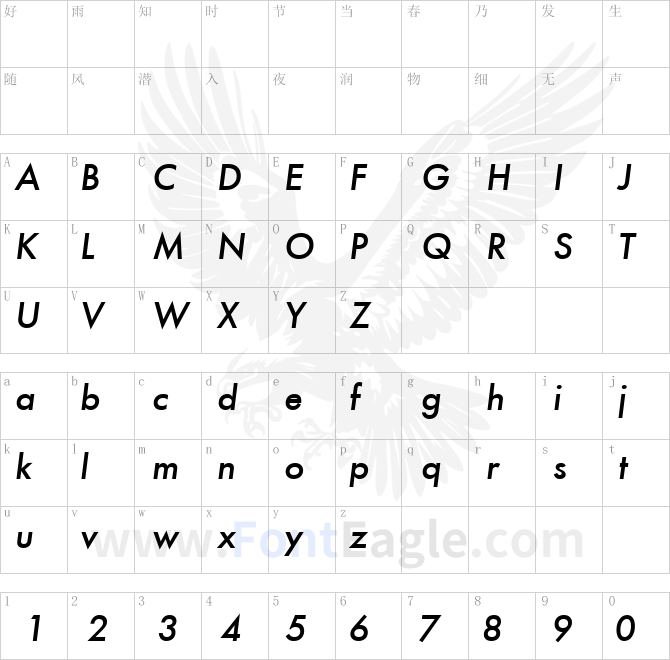
- Font name:FuturaFuturisC
- Font Full Name:PT FuturaFuturis Medium Italic Cyrillic
- Postscript:FuturaFuturisC-Italic
PT-FuturaFuturis-Medium-Italic-Cyrillic is a great font, widely used in graphic design, single-page menu design, poster design and other fields, and is deeply loved by designers.PT-FuturaFuturis-Medium-Italic-Cyrillic download.